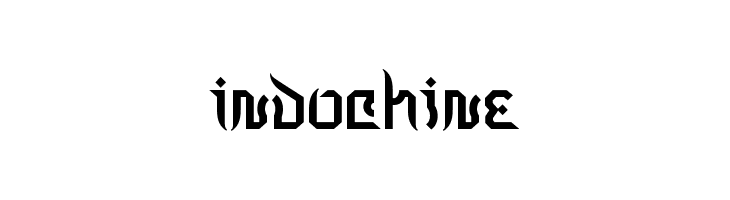
( Fonts by Adien Gunarta - fontasticindonesia.blogspot.com )
A bold, geometric font with a futuristic and industrial style.
( Fonts by Levi Halmos )
A bold, angular font with a modern twist on traditional calligraphy.
( Fonts by Nick Curtis - www.nicksfonts.com )
A bold, geometric font with angular, block-like characters.
( Fonts by Nick Curtis - www.nicksfonts.com )
A bold, geometric font with sharp angles and a modern design.
A bold, geometric font with sharp angles and a modern, edgy style.
A modern, geometric font with clean lines and a uniform structure.
A bold, dynamic script font with a handwritten style.